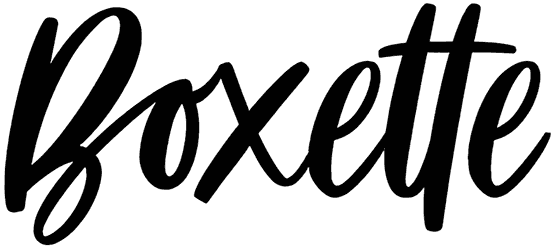
Boxette Font
Picking up the visions of this quote font as is, and incorporating the chosen personality effect into any display events: flyers, quotes, and posters to convey the retro aesthetics and bring a natural vibe, free of charge.